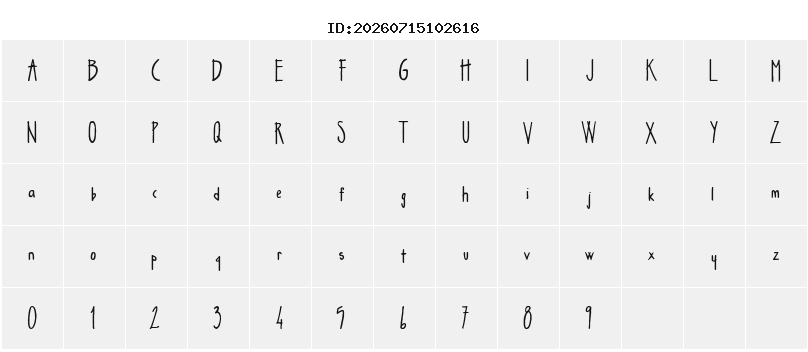
zsarchankian Preview
• Font Name: zsarchankian
• Font ID: zsarchankian:Version 1.00
• Full Font Name: zsarchankian
• Version: Version 1.00 October 25, 2014, initial release
• PostScript Name: zsarchankian
• Character Count: 135
About zsarchankian.ttf
zsarchankian.ttf is a modern, elegant sans-serif font designed for ultimate readability and visual harmony. Perfect for branding, headlines, web design, and print materials.